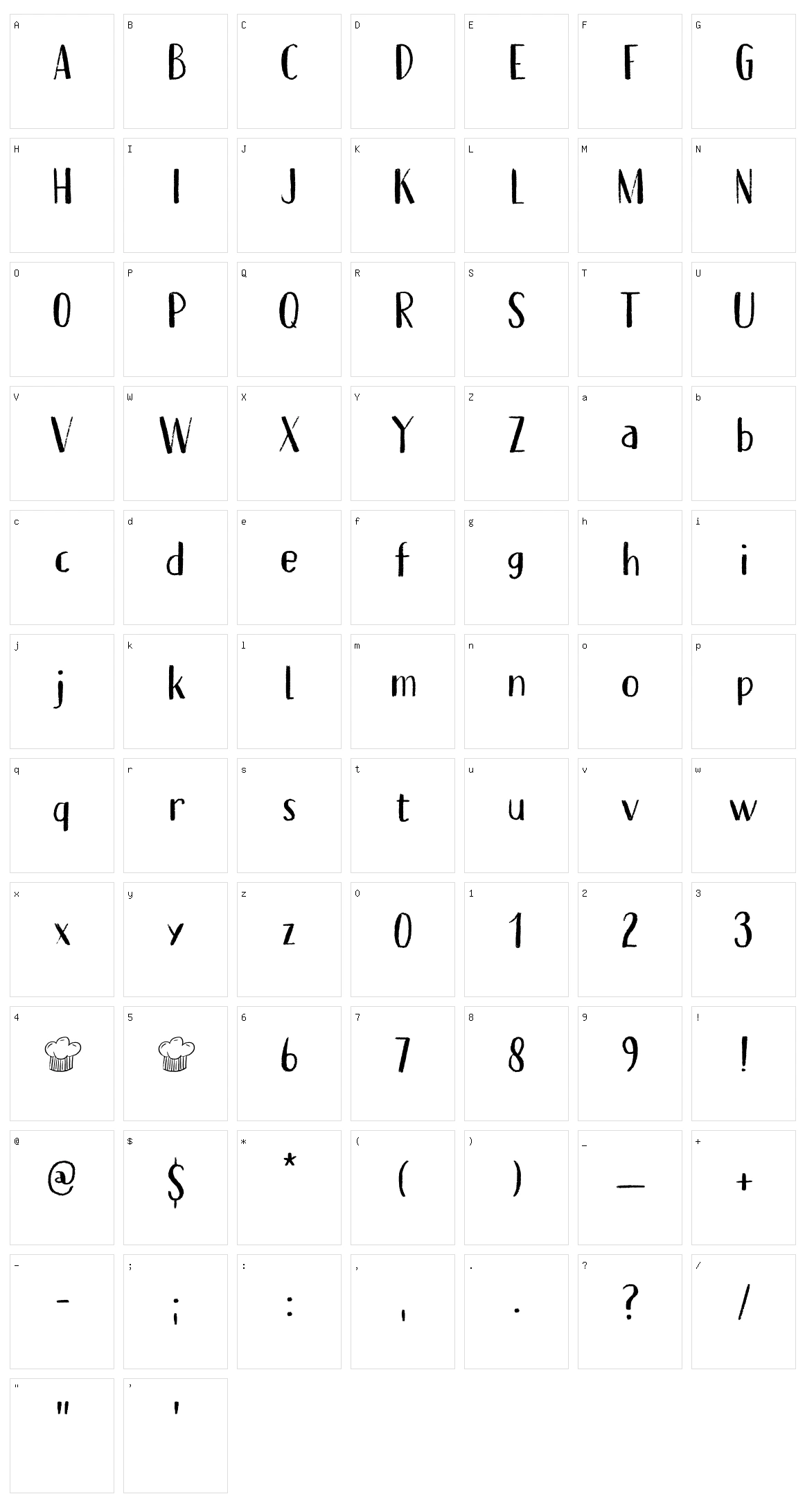
The free font Erstwhile is carefully designed by Hanoded, showcasing a thoughtful balance of creativity and usability and falls under the Eroded font style. When you download the ZIP file, it contains only 167.65 KB of font files, making it lightweight and quick to download. Please review the license details below to understand permitted usage and distribution rights. If license information is not available, we recommend using this font for personal projects only or contacting the author directly for commercial usage permissions.